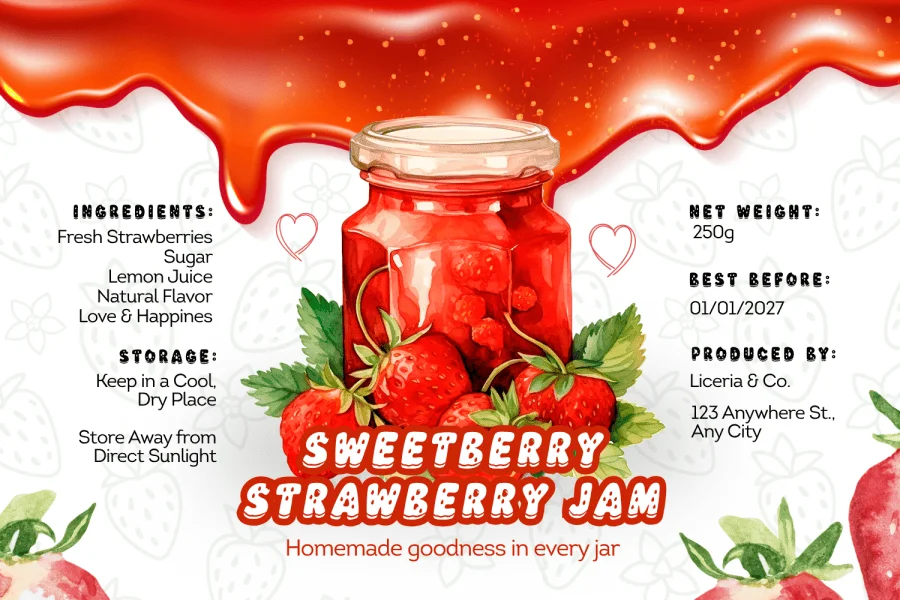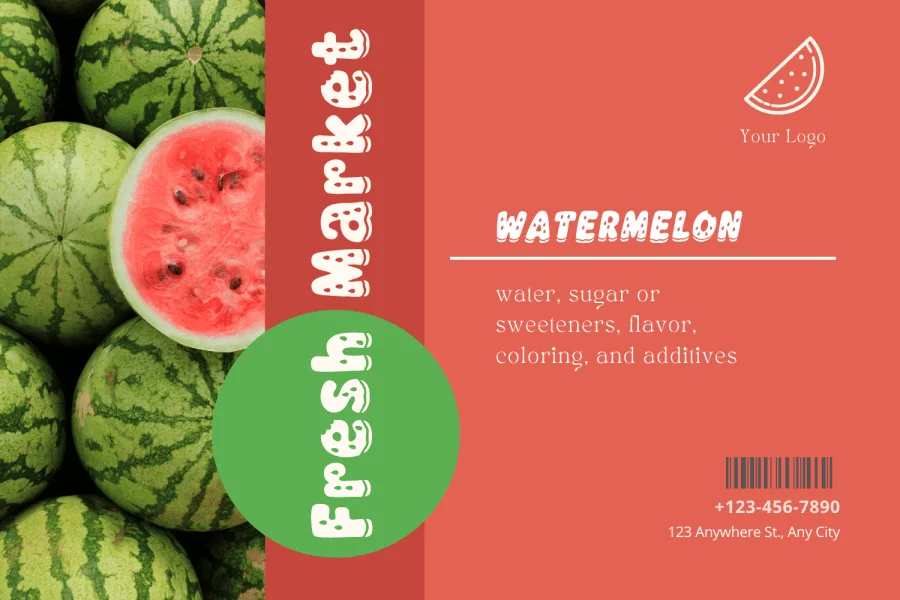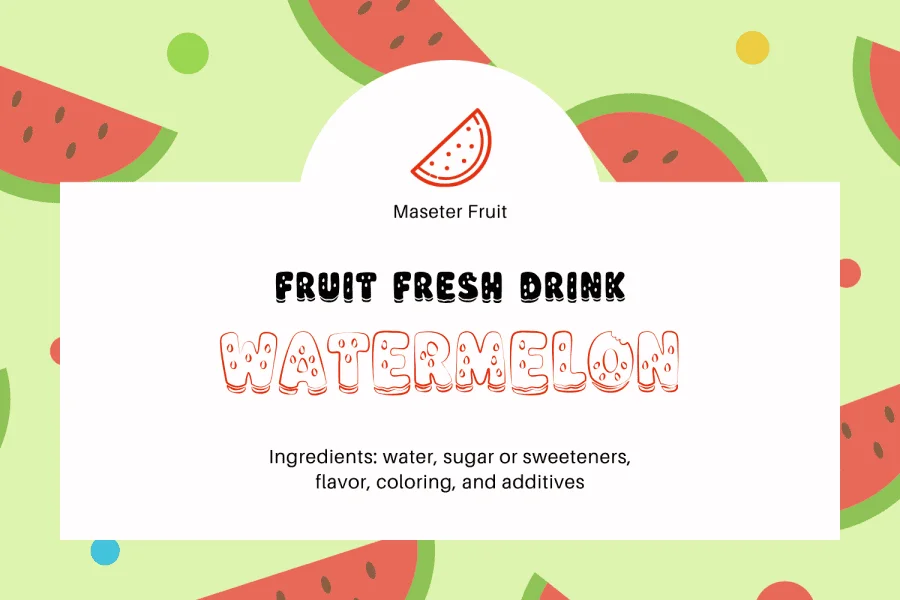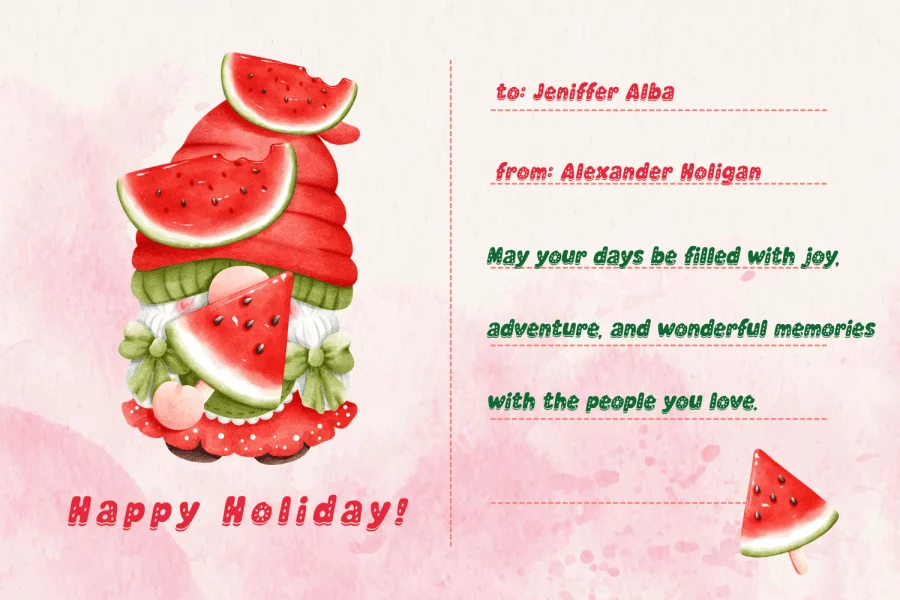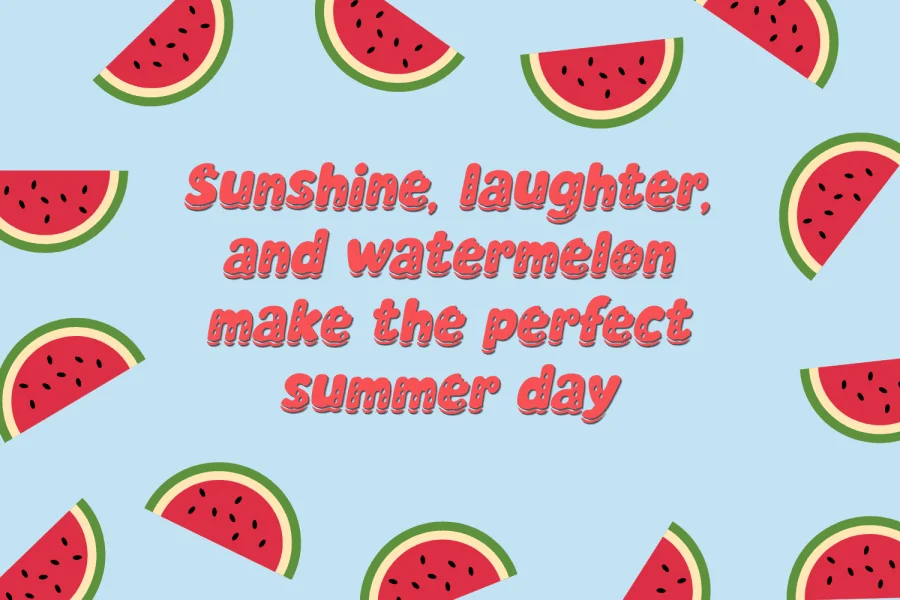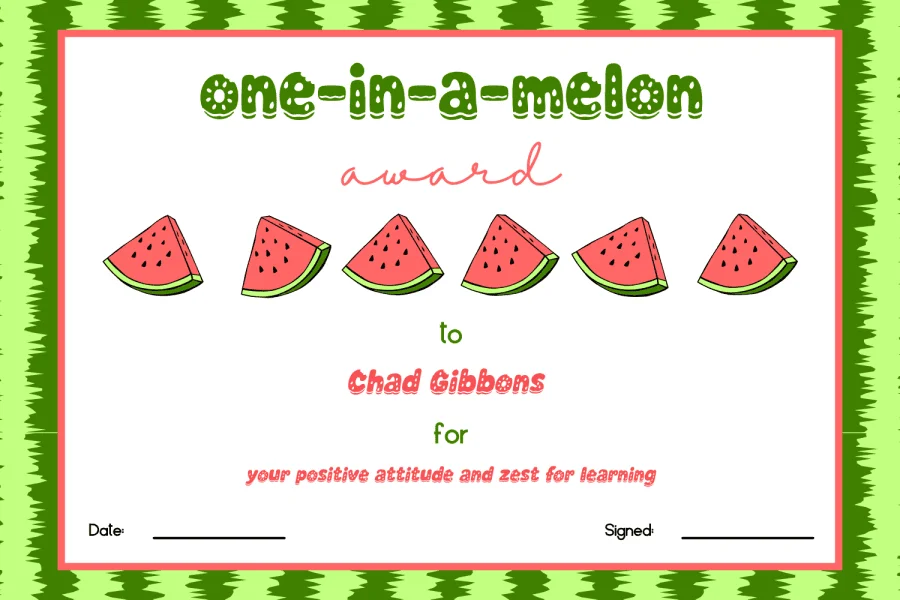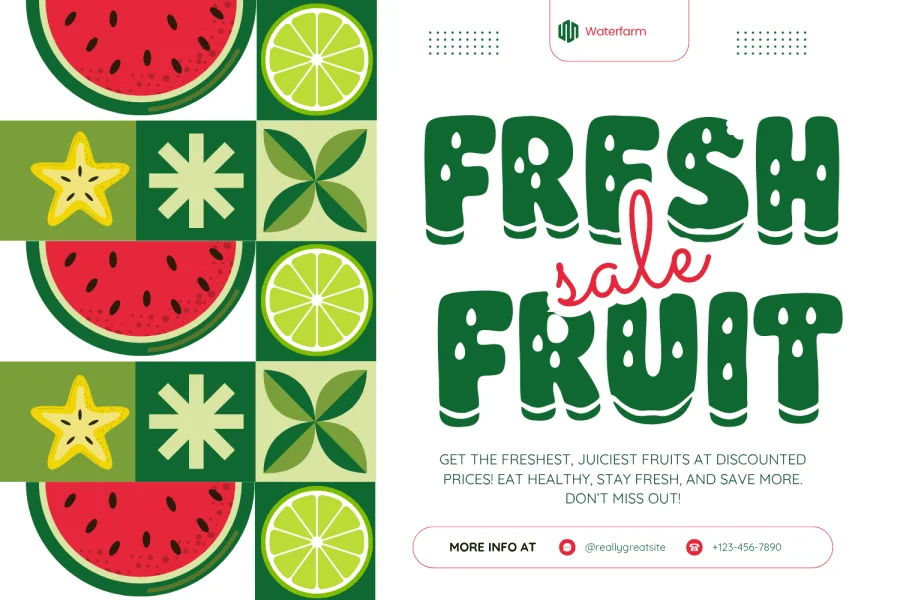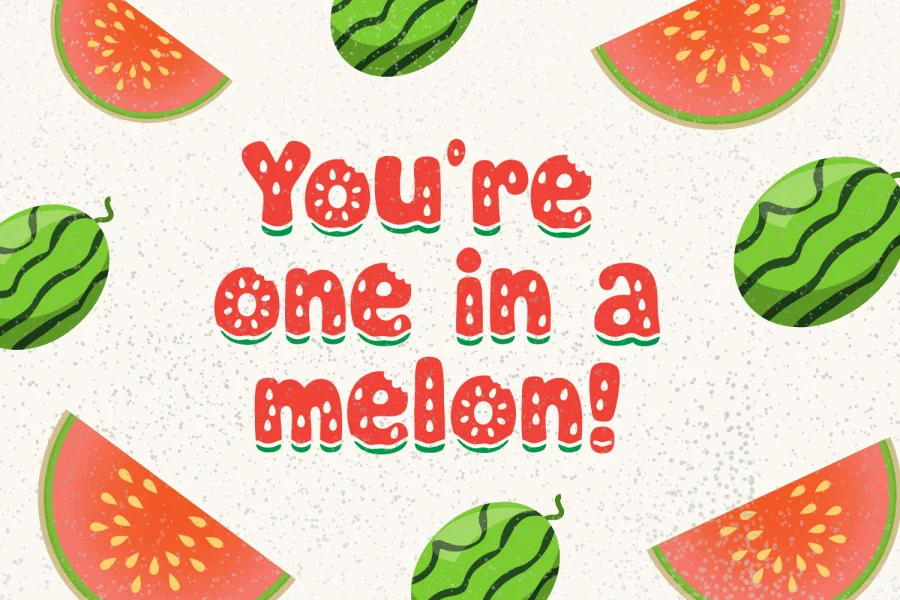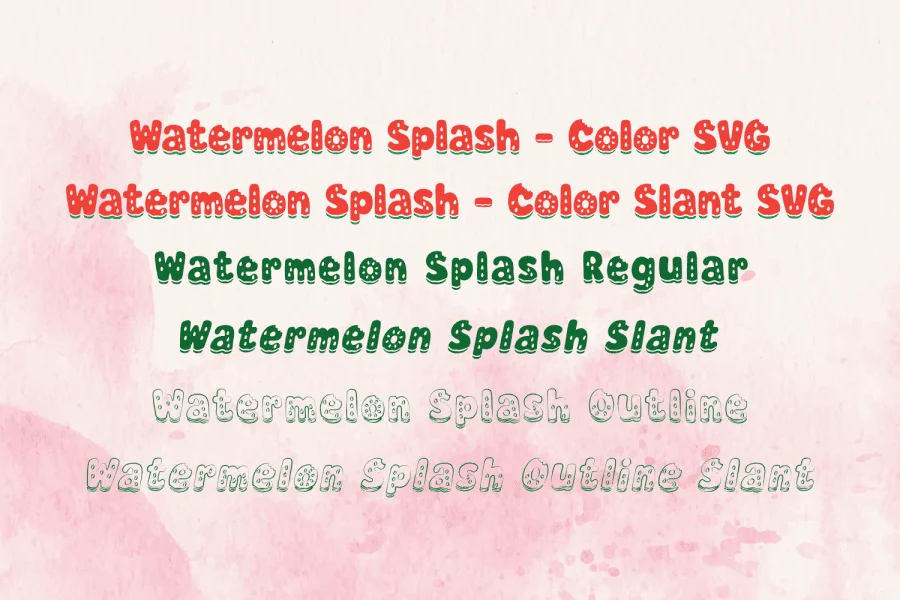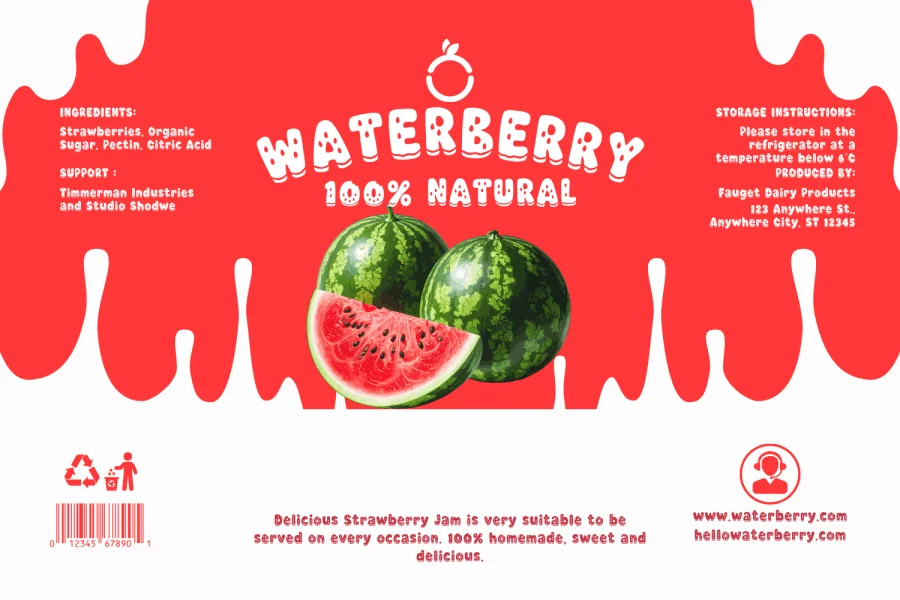
Watermelon Splash is a playful, illustrative display typeface characterized by its ultra-bold, rounded sans-serif letterforms. The design is defined by soft, pillowy contours that give each character a friendly, approachable presence. A distinctive graphic element of this typeface is the integration of small, teardrop-shaped seed cutouts within the main body of the letters, paired with a layered base structure that mimics a watermelon rind to create a subtle 3D effect. This combination establishes a highly textured, dimensional appearance that is both cheerful and visually engaging.
This typeface is perfectly suited for casual, youth-oriented branding and packaging, particularly within the food and beverage industry. Its bold, illustrative nature makes it an excellent choice for juice labels, summer-themed event graphics, children's book titles, and promotional merchandise. The commercial collection includes both upright and slanted variants, as well as simplified outline styles, offering designers the flexibility to create cohesive, vibrant layouts across digital and print media.